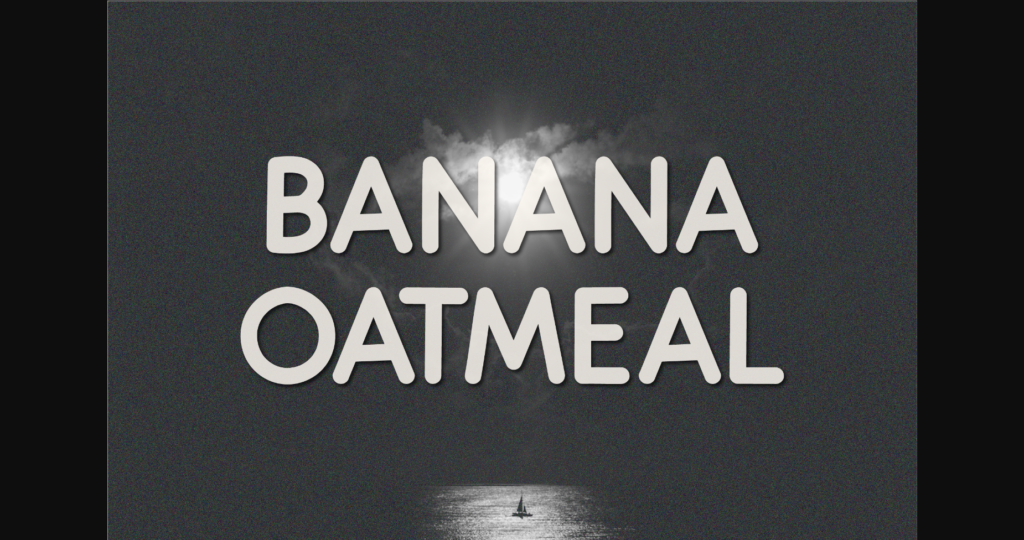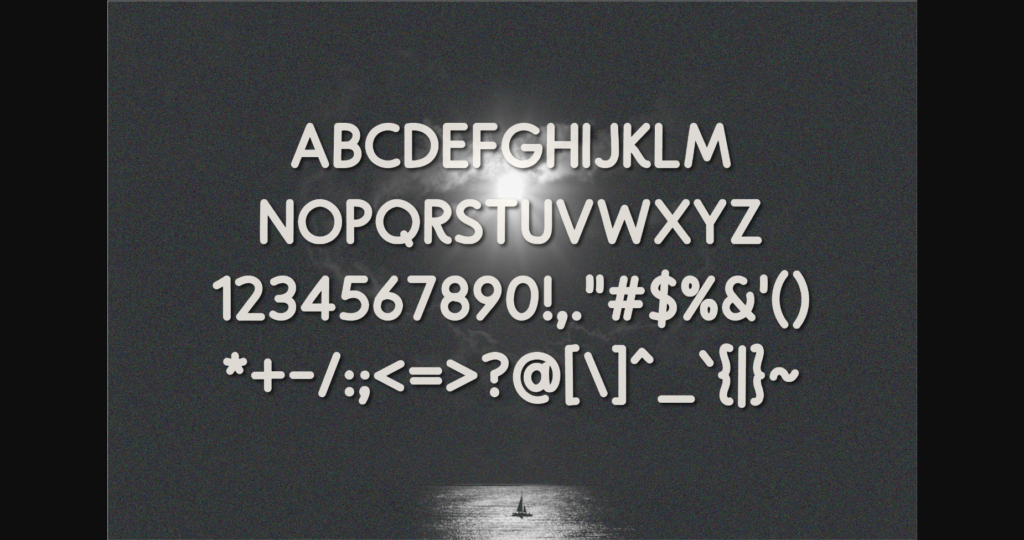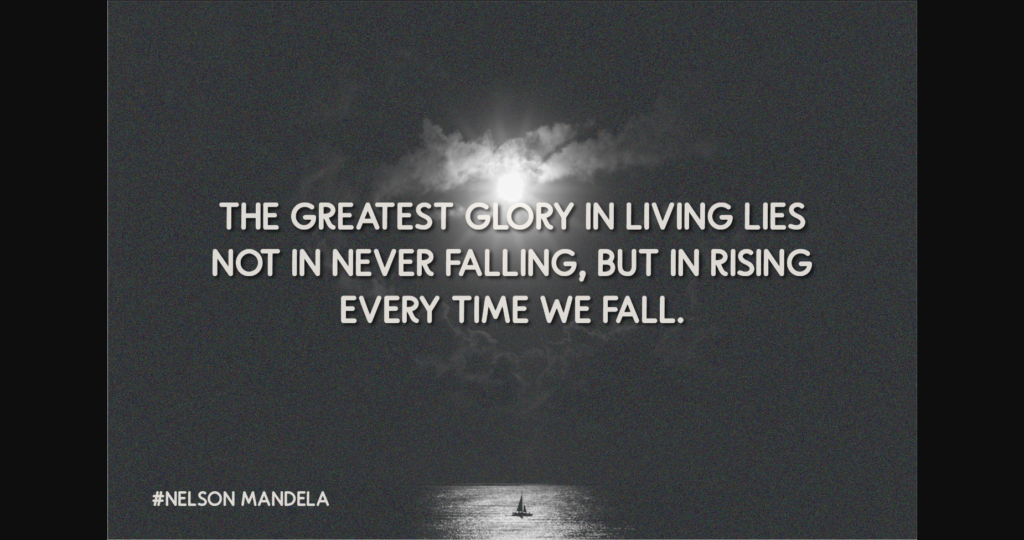
Banana Oatmeal Font
About Banana Oatmeal Font
Banana Oatmeal is a quirky all-caps font made up of capital letters. This font is perfect for social media or crafty projects. Simple and smooth perfect for crafting, t-shirts, decals, cards, invitations and so much more.